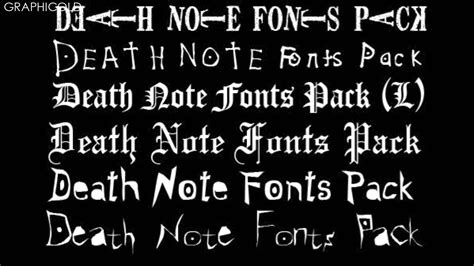
Web try our text generator and create cool graphics for death note font, then you can save the font image to your pc, mac, linux, ios and android device. Web use the text generator below to convert your text into graphics online with death note font, you can then save the image or click on the embed button to get links to embed the image on the web. Expand your business with our cool and unique font. Web two freely available fonts are at your disposal: Death font, crafted by joshua1985, mirrors the book cover font, while death note by rebirth organization closely resembles the film poster font. Web textstudio is an online application for creating custom text effects and logos. Web the death note font generator will convert plain normal font into stylish fancy font that you can use on your death note game or social media profiles. Our 3d text style effects generator can also be used to animate your fonts. We can help you convert any text into beautiful fonts with. This tool provides a wide range of font styles with beautiful.
Expand your business with our cool and unique font. This tool provides a wide range of font styles with beautiful. Expand your business with our cool and unique font. Death font, crafted by joshua1985, mirrors the book cover font, while death note by rebirth organization closely resembles the film poster font. Web try our text generator and create cool graphics for death note font, then you can save the font image to your pc, mac, linux, ios and android device. Web two freely available fonts are at your disposal: Web use the text generator below to convert your text into graphics online with death note font, you can then save the image or click on the embed button to get links to embed the image on the web. We can help you convert any text into beautiful fonts with. Web the death note font generator will convert plain normal font into stylish fancy font that you can use on your death note game or social media profiles. Our 3d text style effects generator can also be used to animate your fonts. Web textstudio is an online application for creating custom text effects and logos.